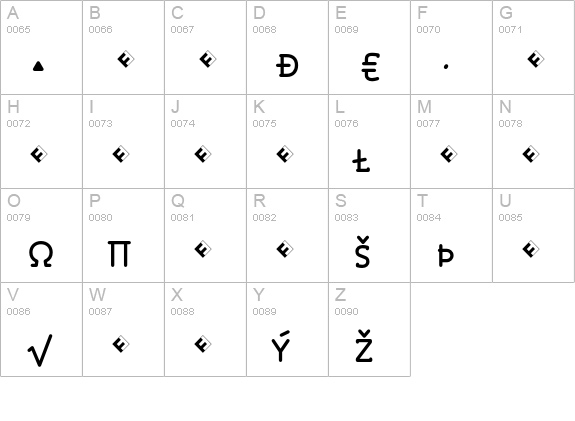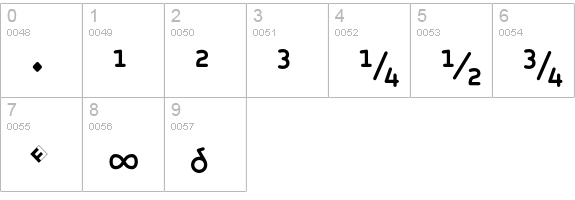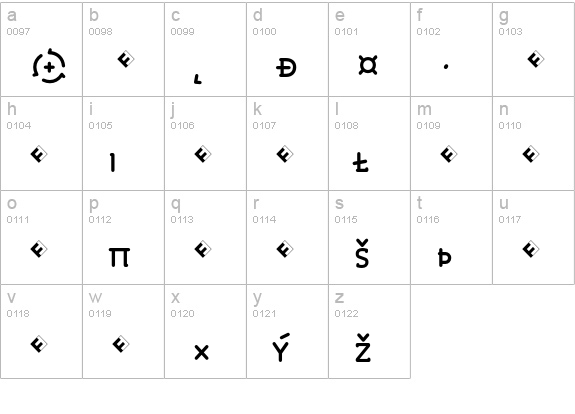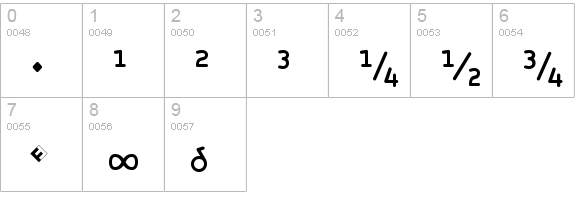
Roice-MediumSCExpert is a stylish and versatile font that exudes sophistication and elegance. Its medium weight and expertly crafted small caps make it perfect for a wide range of design projects, from editorial layouts to branding materials. The clean lines and balanced proportions of this font give it a modern yet timeless look that will elevate any design. What's even better is that Roice-MediumSCExpert is available for free download at FontsMarket.com. This means you can easily access this high-quality font to enhance your creative projects without any cost. Whether you're a professional designer or a hobbyist looking to add a touch of class to your work, Roice-MediumSCExpert is the perfect choice. Download it now and start creating stunning designs with this exquisite font.